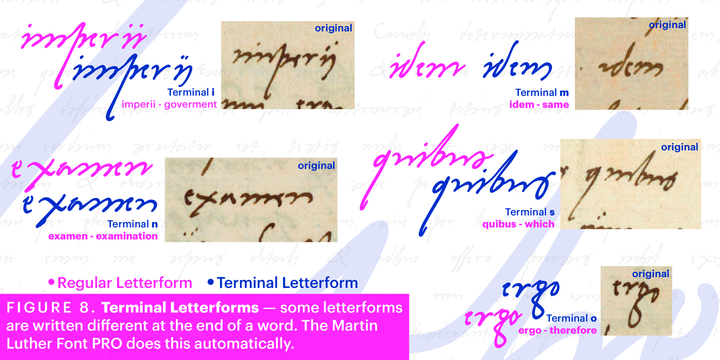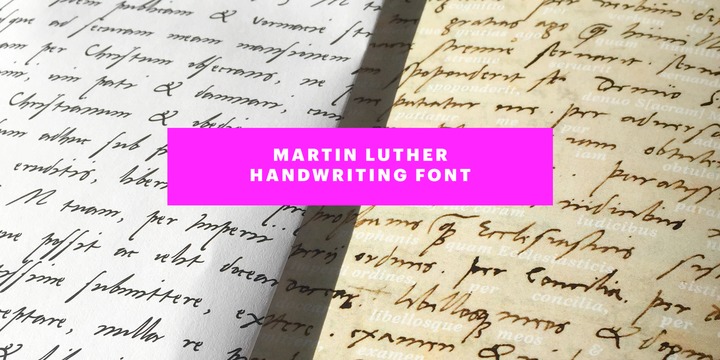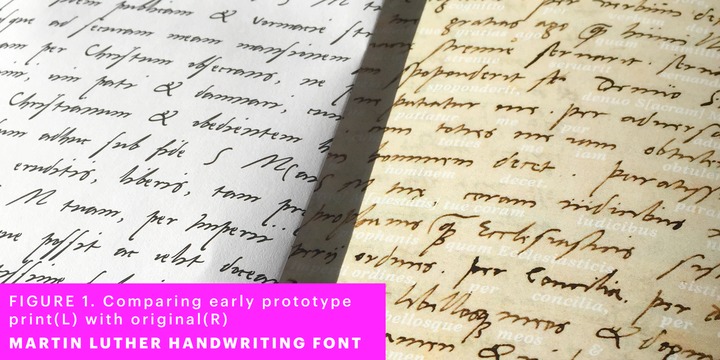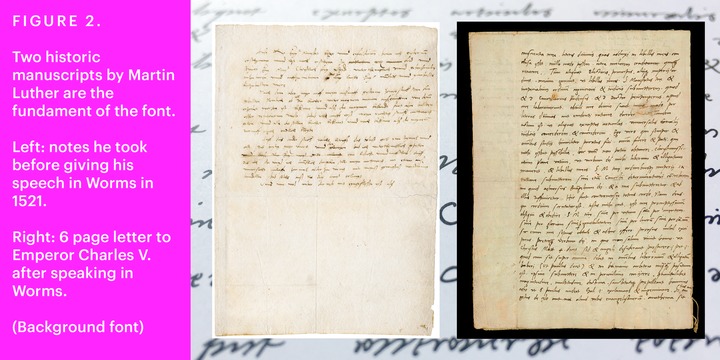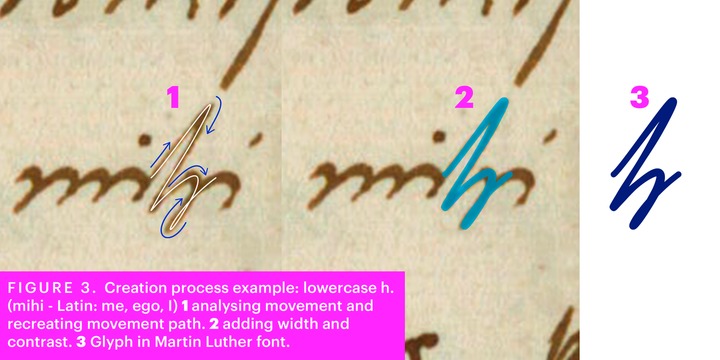
Letters that occur more often for example vowels have two or more different versions stored in the font.
(( Figure 4)) These alternative forms are exchanged automatically by the font as you type, and create a vivid look that comes close to actual handwriting.
The font avoids that two identical letters are placed next to each other like, for example the two o in the word look.
More What Historic Sources is the Font based on? Two historic documents were used to base the font on.
The notes Luther took before giving his speech in Worms in 1521 and a 6 page letter he wrote immediately after to Emperor Charles V.
, summarising his speech ( Figure 2). Both documents have been added to the UNESCO Memory of the World and can be seen Google Arts and Culture website.
The Creation of a Handwriting Font The creation of a handwriting font is very different from the creation of a regular font.
Harald Geisler has specialised in recreating handwriting in preceding projects with Albert Einsteins, Sigmund Freuds and his own handwriting.
His experience working with Archives and Museums has gone into this project. First Geisler analyses the movement in the writing to understand how each letter is drawn.
This involves partially learning how to write like a person. In this process not the outlines of the sample are reproduced but the original movement path of the handwriting ( Figure 3).
In a second step width and contrast is added to reproduce Martin Luthers characteristic impetus and the writing tools used at the time.
((Link: Youtube Playlist showcasing the creation of individual letters) ) How about signs that cant be found in archives? Some Glyphs can not be found in 500 year old manuscripts, for example the @-sign.
Towards the end of the creation one collects a profund amount of details about how a writer moves on paper and addresses certain tasks moving the pen.
Keeping this knowledge in mind an improvisation can be based on similar letter forms.
For example the @ sign is based on of the movement of a lowercase a and parenthesis.
Features of the Martin Luther font Extensive Documentation of the creation of the font, including high quality reproduction of the used manuscripts.
Additional texts from Historian Dr. Henning Jürgens and Palaeographer (and Luther handwriting expert) Prof. Ulrich Bubenheimer Alternating Letters - in handwriting every word looks a bit different. To avoid that two identical letterforms are placed next to each other (for example in the word look) the font actively changes between different versions of letters as you type.
Ligatures - characteristic writing forms when two letters are combined (for example ct) ( Figure 5) Terminal Forms - renders a special letterform when letter is at the end of a word.
Initial Forms - some letterforms are different when placed at the beginning of a word.
Luther Rose - is a seal Luther used to authorise his correspondence. Today it is a widely recognized symbol for Luther. When you enter the numbers of Luthers year of birth and death 14831546 using the Martin Luther PRO font, it will render a stylised version of the Luther Rose.
Historic letter-forms - letter-forms that are specific to medieval writing around 1500.
For example the long-s or h with a loop at the bottom. ( Figure 6) Multi language support - see the technical information tab for a full list of supported languages.
The different Styles explained Martin Luther PRO - this includes all features listed above and is geared towards writing texts that are more readable today.
It features alternating letters to create a natural handwriting look as well as two stylistic sets accessible through the OpenType menu.
Historic forms are available through the glyph picker. Martin Luther Historic - this font creates a historically correct reproduction (i.e. with long-s) of Luthers medieval latin handwriting. It features alternating letters to create a natural handwriting look as well as two stylistic sets accessible through the OpenType menu.
Martin Luther Expert-1 - Dedicated access to the first set of letters only.
Martin Luther Expert-2 - Dedicated access to the second set of letters only.